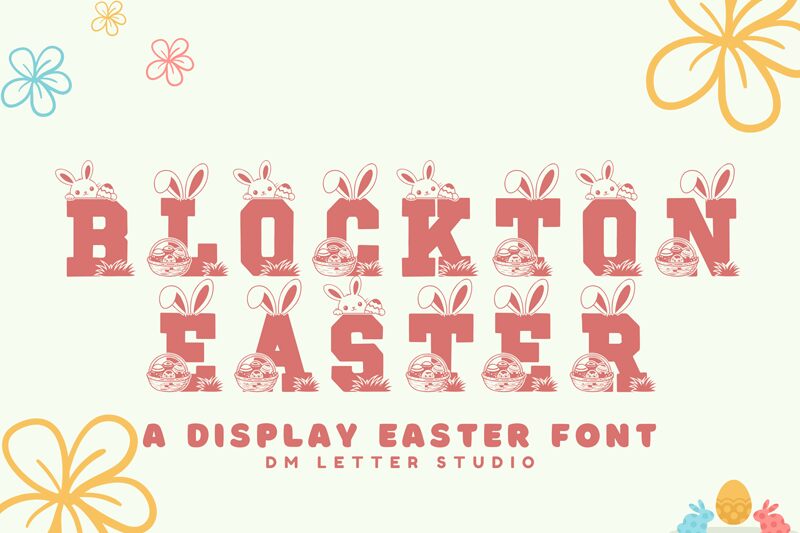
Blockton Easter font by Dimas Prasetyo from DM Letter Studio is a free font that embraces festive and playful themes. Its decorative and whimsical design captures a nostalgic feel that invites a creative approach to any seasonal-themed project. The vibrant, illustrative style of a holiday concept is what makes this font really unique and suitable for a wide range of applications.
With its stylistic characteristics and letter details, this font is perfect for holiday and party invitations, event posters, social media graphics, stationery, labels, and stickers designs. Use it to craft stunning t-shirt designs, mugs, packaging, and branding projects such as typography logos and slogans.